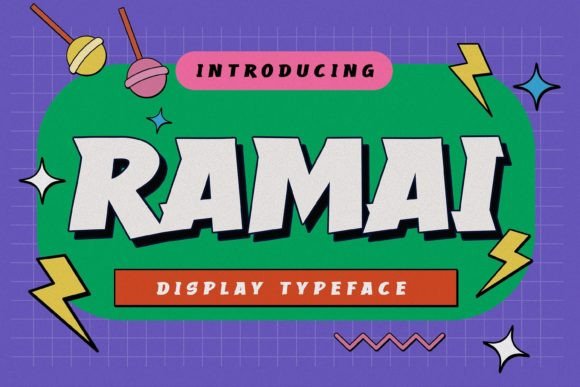
Ignite your designs with the captivating allure of Ramai Font, a mesmerizing display typeface that will transform your creations into masterpieces. Inspired by the vibrant energy of food logos and the intricate artistry of handcrafted designs, Ramai embodies a harmonious fusion of style and substance.
Each letterform dances across the page with a raw, organic beauty, evoking the primal power of nature. Its playful curves and understated elegance add a touch of warmth and individuality to every design it graces. Whether you're crafting an invitation that whispers of rustic charm or a logo that commands attention with its bold statement, Ramai seamlessly adapts to your vision.
Beyond its aesthetic brilliance, Ramai is a font of versatility. Its wide range of characters, including OpenType features and PUA-encoded glyphs, empowers you to unleash your creativity and express your unique style. Create breathtaking posters that inspire movement, design covers that captivate the imagination, and craft logos that leave an unforgettable mark.
With Ramai, you'll elevate your designs to new heights, transforming them into captivating works of art that resonate with your audience. Its natural charm and unparalleled flexibility make it the perfect choice for designers seeking to make a statement, leave a lasting impression, and breathe life into their creations.